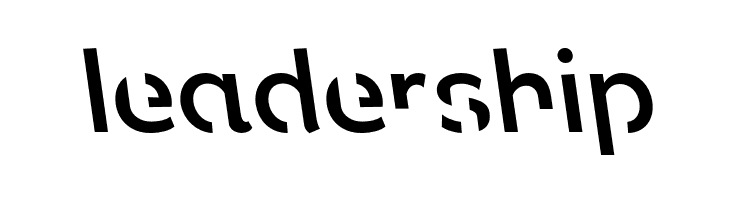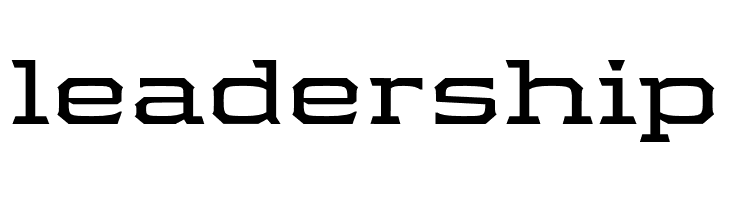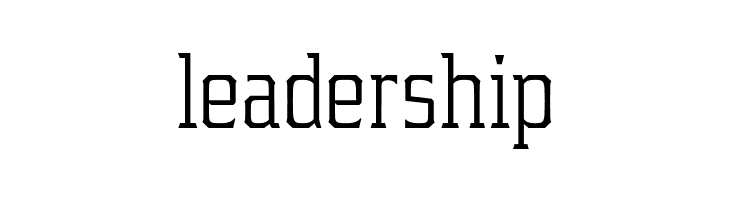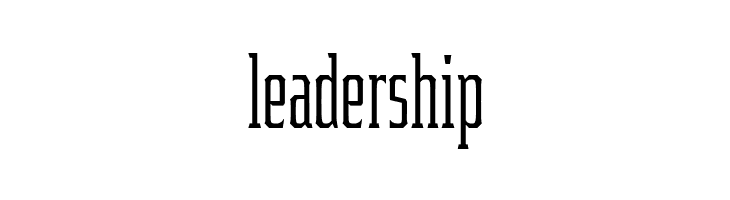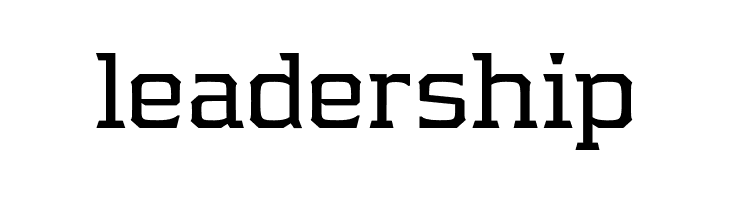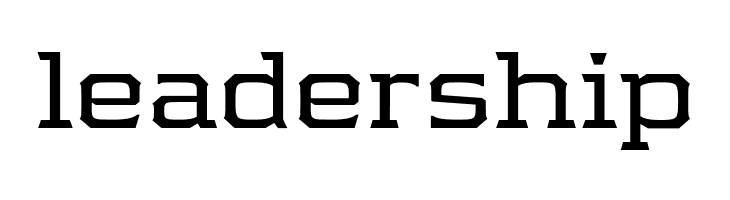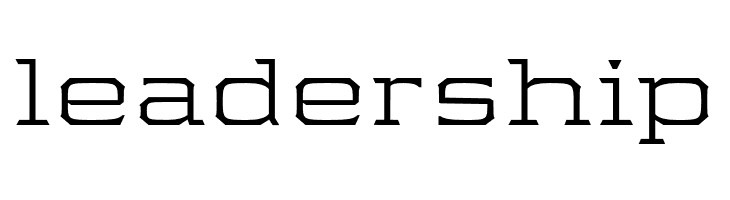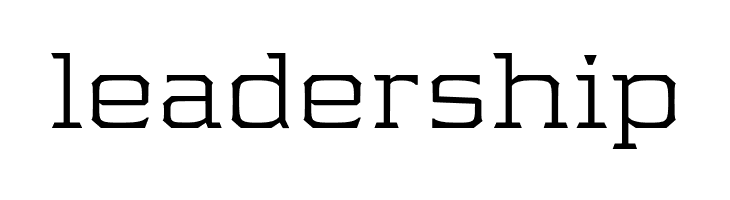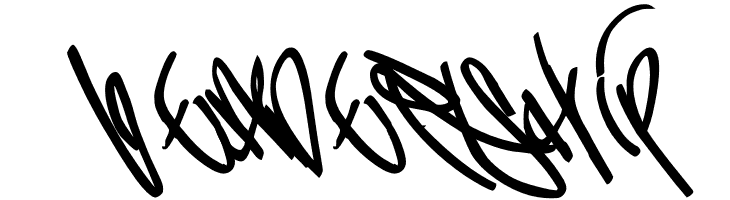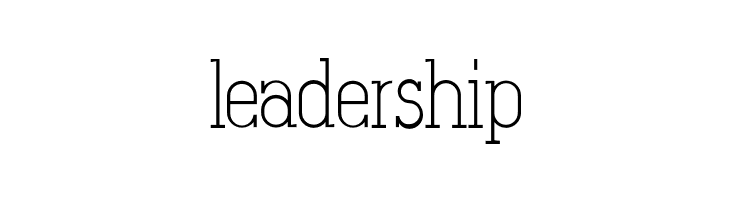
A modern slab serif font with elegant, narrow uppercase letters and balanced lowercase characters.
A classic serif font with medium contrast and elegant strokes.
A tall, narrow, and modern condensed font with uniform stroke width.
An elegant, calligraphic script font with ornate uppercase and flowing lowercase letters.
A bold, playful font with rounded edges and a vintage flair.
A tall, narrow font with a modern and sleek design.
Graffiti-inspired font with bold, fluid strokes and interconnected characters.
A bold, hand-drawn font with a rugged, adventurous style.
A bold, slab serif font with geometric shapes and a vintage feel.
A bold, condensed font with angular, geometric letterforms.
A bold, condensed font with geometric precision and modern appeal.
A condensed, light font with a modern and geometric style.
A bold, structured font with a modern, industrial feel.
A bold, extended font with a geometric, industrial style.
A modern, geometric monospaced font with low contrast and uniform spacing.
A modern, extra-condensed font with bold, narrow characters.
A bold, extra-condensed font with a modern, impactful style.
A tall, narrow, and modern condensed font with uniform stroke width.
A bold, extended slab serif font with a strong geometric presence.
A bold, extended slab serif font with a modern yet vintage feel.
A modern, extra-extended light font with geometric and airy letterforms.
A modern, geometric font with a structured and versatile design.
A bold, geometric font with a modern and professional style.
A tall, narrow font with elongated characters and a modern, artistic style.
A bold, narrow font with elongated characters and a dramatic style.
A playful and whimsical script font with elegant curves and fluid strokes.
A modern, geometric font with bold, striped patterns and angular forms.
A bold, textured slab serif font with a vintage, distressed style.
A bold, experimental sans-serif font with gaps and slants for enhanced memory retention.
A modern, light sans-serif font with a clean and elegant style.
A modern, elegant, and slightly italic font with smooth curves and consistent stroke width.
A bold, modern font with a friendly and dynamic style.
A dynamic and elegant italic font with smooth curves and consistent stroke width.